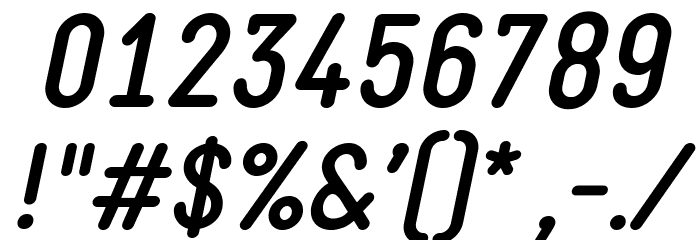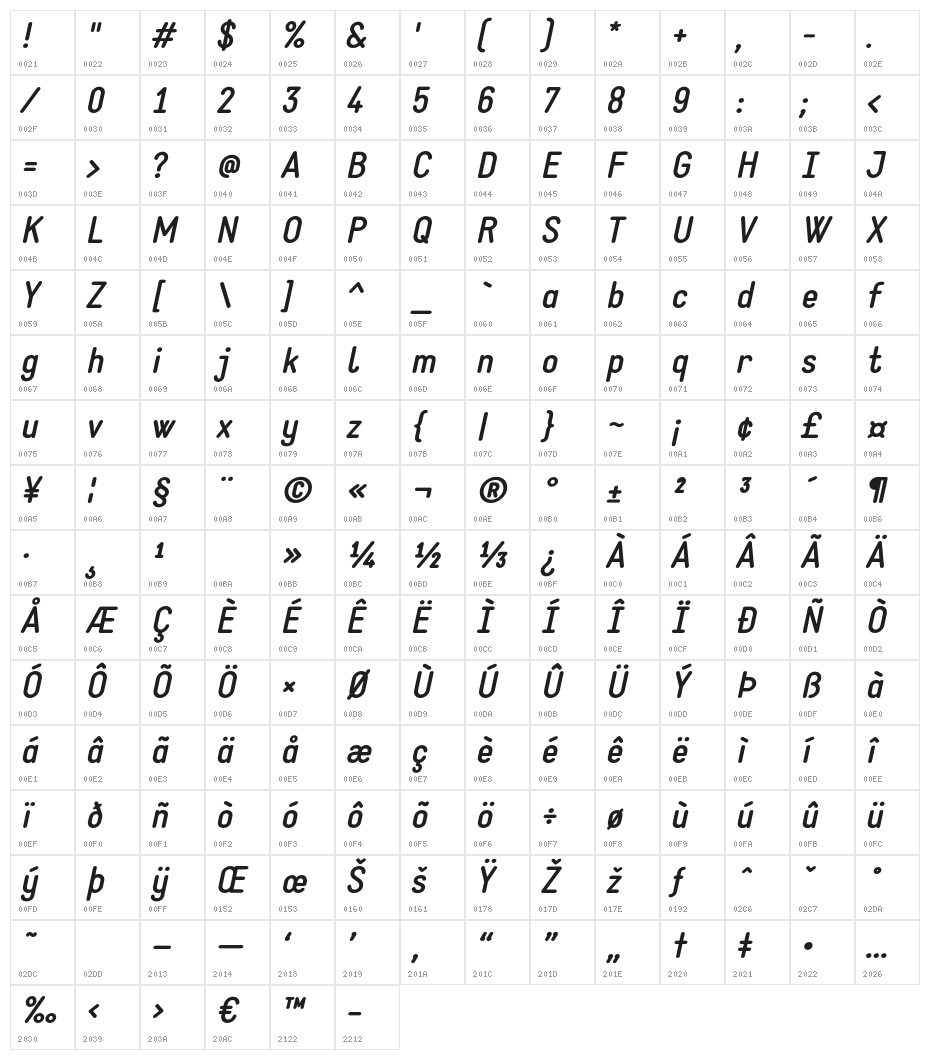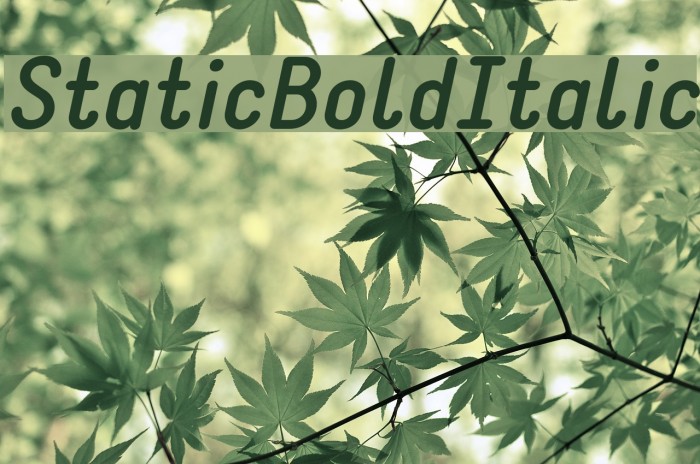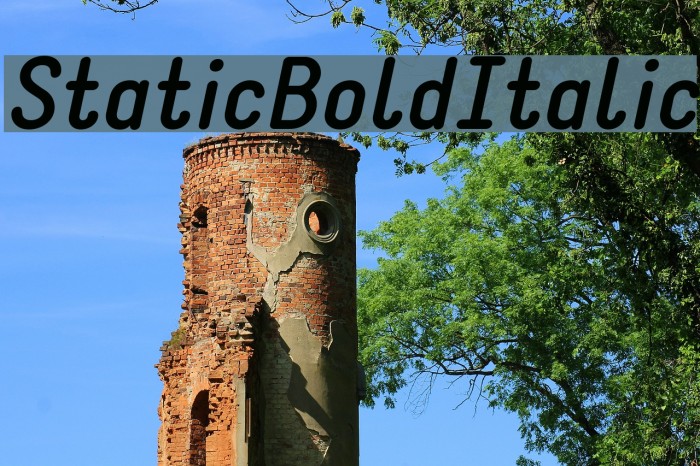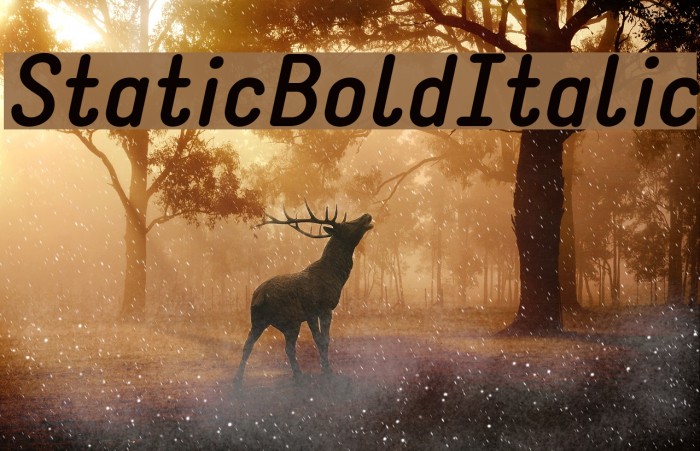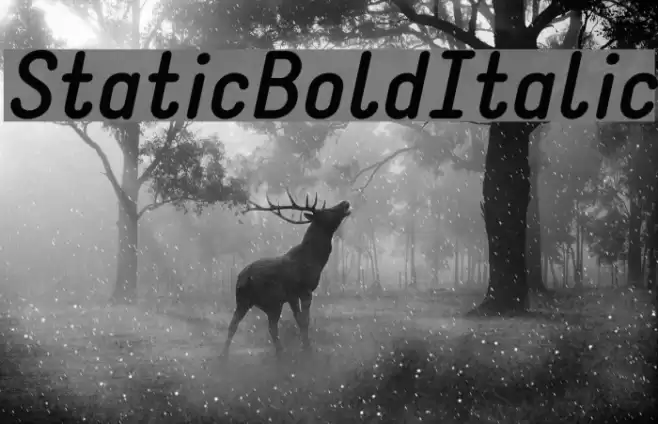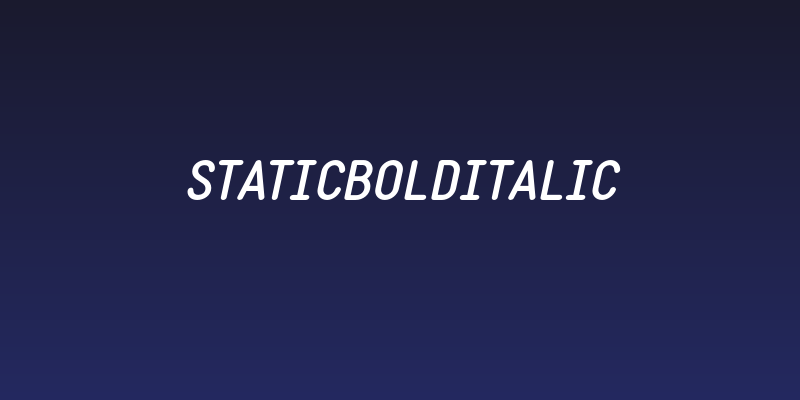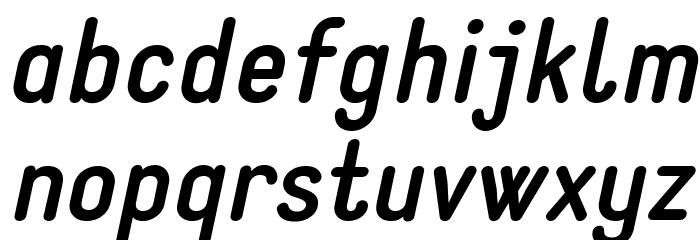
StaticBoldItalic Font
StaticBoldItalic Description
This font exhibits a bold and italicized style, characterized by its smooth and rounded edges. The letters are slightly slanted, giving a dynamic and modern appearance. The uppercase and lowercase letters maintain a consistent thickness, ensuring readability and uniformity. The numerals are clear and distinct, matching the overall aesthetic of the alphabet. Special characters are well-integrated, maintaining the font's cohesive look. The font's design is versatile, suitable for a variety of applications where a bold and stylish presence is desired.
| Proposed Projects | Ideal for branding, advertising, headlines, and any project requiring a bold, modern look. |